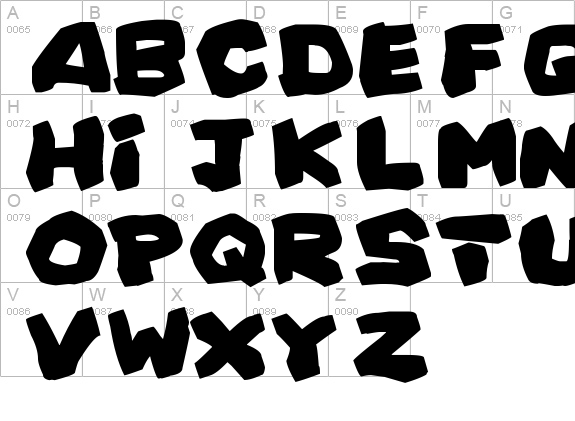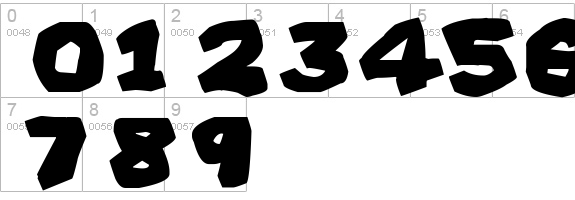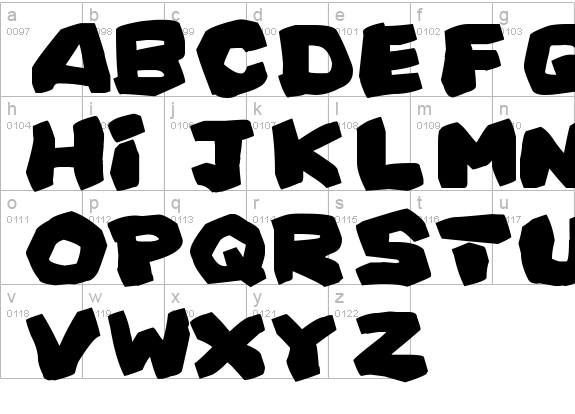
Prehisoric Caveman is a free for personal use font in the Fancy > Comic category, designed by Darrell Flood. It has been downloaded 37 times and is available for Windows, Mac and Linux.
The Prehistoric Caveman font is a bold and rugged typeface inspired by the ancient markings and drawings found in caves from centuries ago. Its rough edges and primitive style evoke a sense of raw creativity and primal energy. This font is perfect for projects seeking to add a touch of history and authenticity, whether it be for a poster, logo, or branding design.